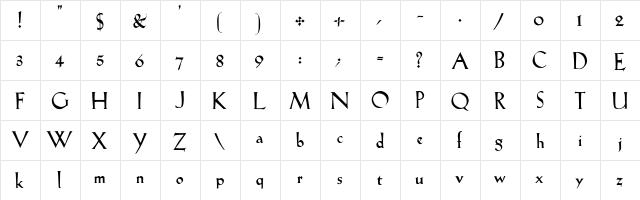
Spaden-Heavy Regular
Design Context for Spaden-Heavy Typeface
Spaden-Heavy offers clean, dependable letterforms without strong stylistic allegiance, making it a practical choice for designers who need flexibility.